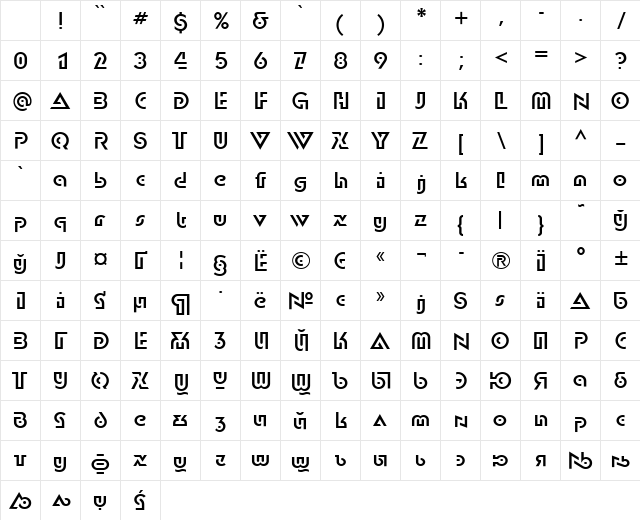
DublonC Regular
Foundry: ParaType, Inc
Design Context for DublonC
DublonC is a composed and adaptable typeface that performs quietly and consistently across a wide range of design contexts.
Who designed the DublonC Regular font?